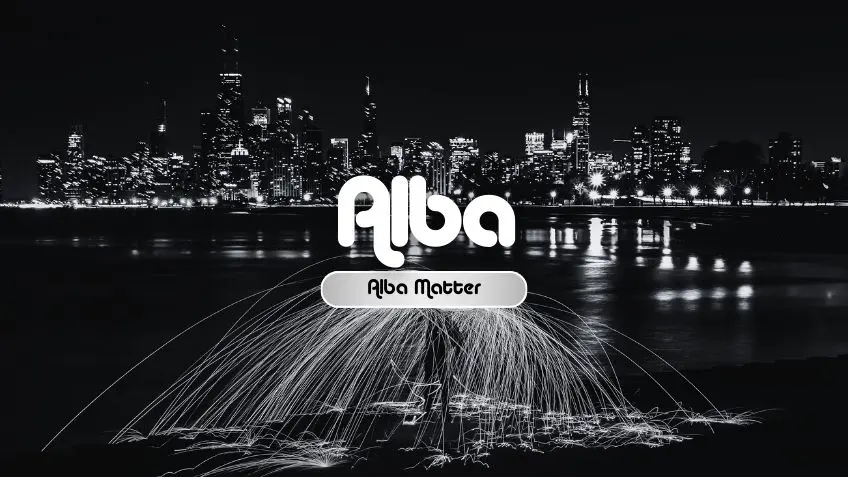
The font Alba Matter, designed by Ben Balvanz, falls under the Display category & Alba font family. Its smooth, flowing letterforms make it a versatile choice for projects that require both elegance and readability. Alba is particularly well-suited for Headlines and Titles, Children's Products, Branding and Logos and T-shirt and Apparel Design. With its balance of simplicity and decorative appeal, this font brings a polished touch to both personal and professional designs.